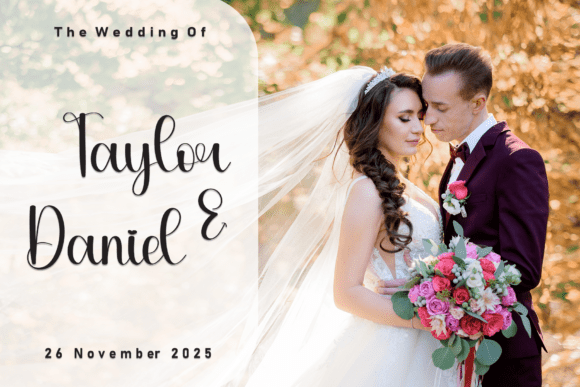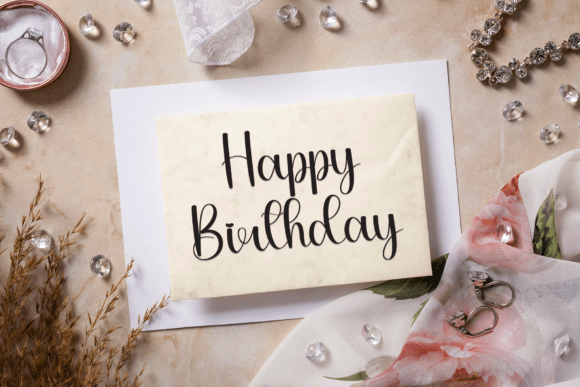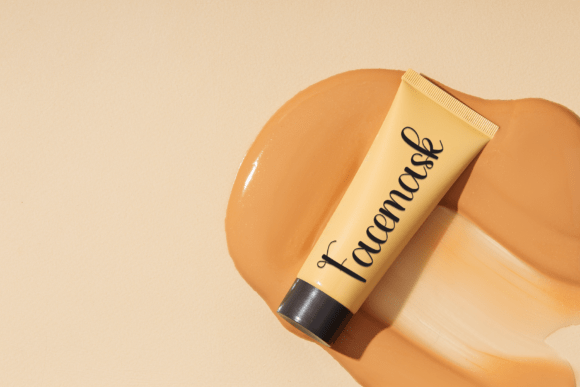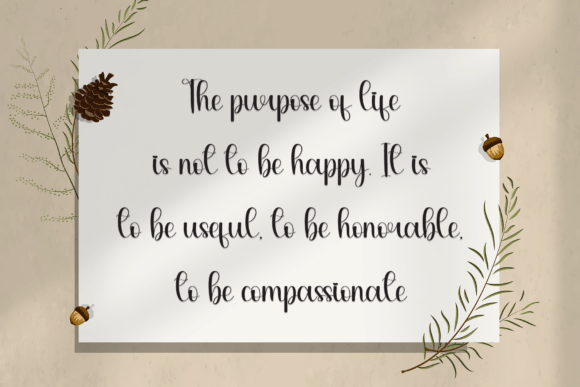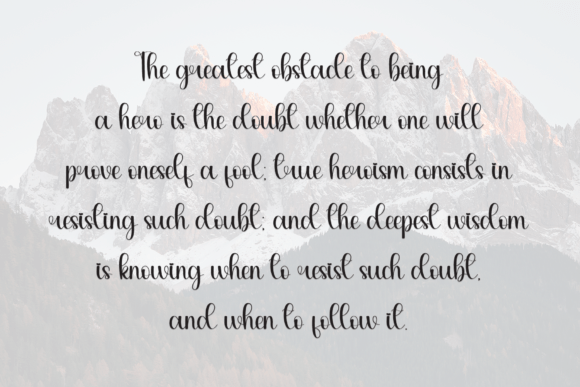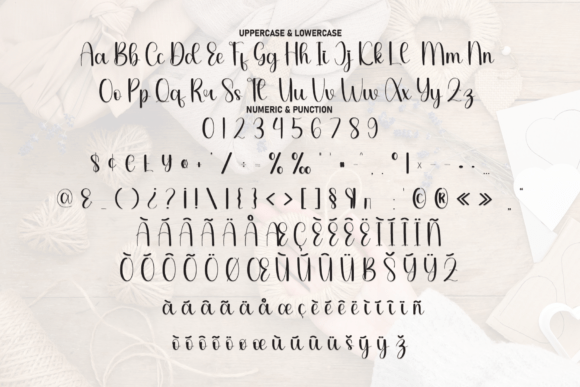
Introducing Handmade Font: The Perfect Choice for DIY Projects and Crafty Creations
Are you a designer, crafter, or DIY enthusiast looking for a font that captures the essence of handmade charm? Look no further than Handmade Font, a beautiful script font that mimics natural handwriting with a touch of whimsy. With its flowing strokes and elegant swashes, Handmade Font is the perfect choice for adding a personal, heartfelt feel to your projects.
The Characteristics of Handmade Font
Handmade Font is a charming script font that is designed to evoke the feeling of natural handwriting. Its soft, flowing strokes and elegant swashes give it a unique and whimsical touch that sets it apart from other fonts. The font features:
- Flowing strokes that mimic natural handwriting
- Elegant swashes that add a touch of sophistication
- A soft, approachable feel that’s perfect for DIY projects
- A personal, heartfelt feel that’s ideal for handmade product packaging, wedding stationery, and social media graphics
Perfect for DIY Projects and Crafty Creations
Handmade Font is the perfect choice for DIY projects, handmade product packaging, wedding stationery, and cozy social media graphics. Its unique and whimsical touch adds a personal feel to any project, making it stand out from the crowd. Whether you’re a designer, crafter, or DIY enthusiast, Handmade Font is the perfect choice for:
- Handmade product packaging: Add a personal touch to your product packaging with Handmade Font
- Wedding stationery: Create beautiful and unique wedding stationery with Handmade Font
- DIY projects: Add a touch of whimsy to your DIY projects with Handmade Font
- Social media graphics: Create cozy and engaging social media graphics with Handmade Font
Why Choose Handmade Font?
There are many reasons why Handmade Font is the perfect choice for designers, crafters, and DIY enthusiasts. Here are just a few:
- Unique and whimsical touch: Handmade Font adds a unique and whimsical touch to any project, making it stand out from the crowd
- Personal and heartfelt feel: Handmade Font has a personal and heartfelt feel that’s perfect for handmade product packaging, wedding stationery, and social media graphics
- Soft and approachable: Handmade Font is soft and approachable, making it perfect for DIY projects and crafty creations
- Effortlessly creative: Handmade Font is effortlessly creative, making it perfect for designers, crafters, and DIY enthusiasts
Tips for Using Handmade Font
Here are a few tips for using Handmade Font in your projects:
- Use it for headings and titles: Handmade Font is perfect for headings and titles, adding a touch of whimsy and elegance to your project
- Pair it with a sans-serif font: Pair Handmade Font with a sans-serif font for a beautiful and contrasting look
- Experiment with swashes: Experiment with the elegant swashes in Handmade Font to add a touch of sophistication to your project
- Use it for branding: Use Handmade Font for branding purposes, such as logos and business cards, to add a personal and heartfelt feel
Handmade Font is a beautiful and charming script font that’s perfect for designers, crafters, and DIY enthusiasts. With its flowing strokes and elegant swashes, Handmade Font adds a unique and whimsical touch to any project. Whether you’re looking for a font for handmade product packaging, wedding stationery, or social media graphics, Handmade Font is the perfect choice. So why not give it a try and see the difference it can make in your projects?